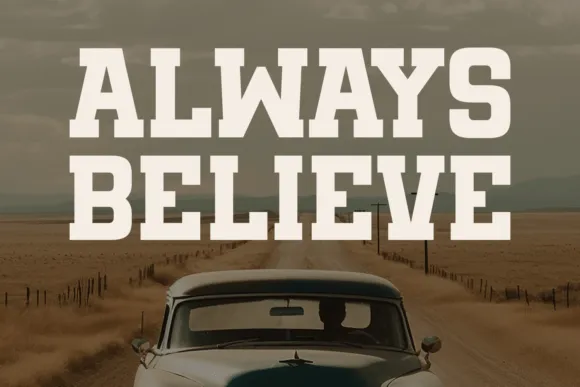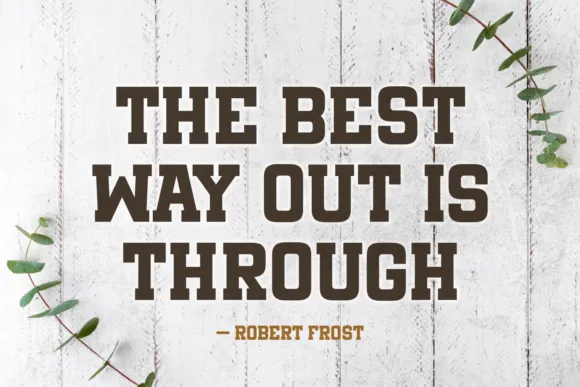
Rustic Brown Font Download
Rustic Brown Font and uncomplicated slab serif font Rustic Brown adds a touch of warmth and authenticity to your text.
It is ideal for conveying a sense of rugged simplicity because it has bold, robust lettering that gives any project a rustic charm.
Rustic Brown Font ensures that your message is delivered with a touch of down-to-earth style, making it ideal for headlines, signage, and other projects that require a straightforward yet inviting typeface.